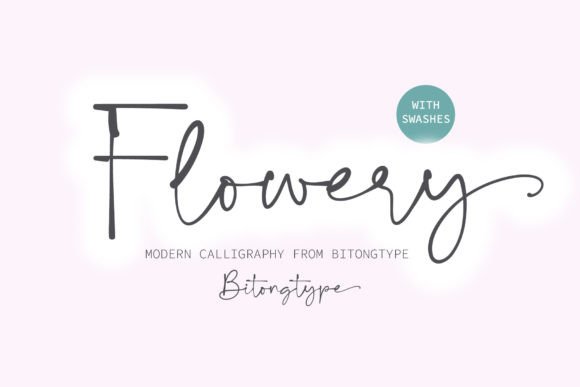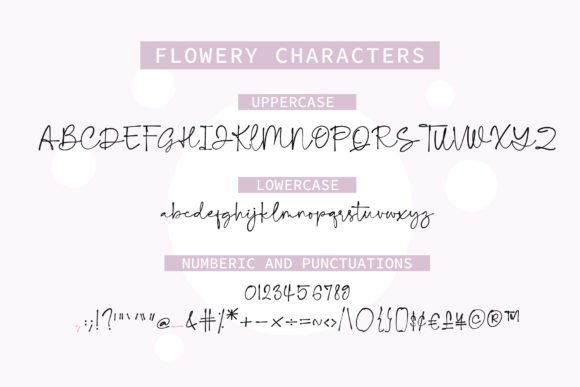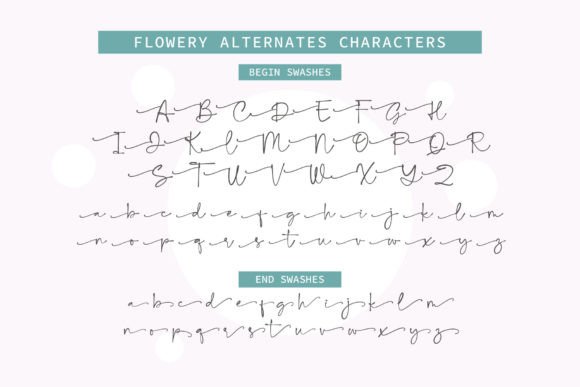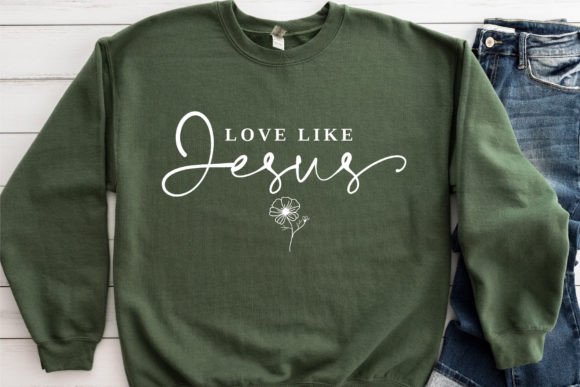
Flowery Font
About the Flowery Font
Welcome to the world of Flowery Font, a typeface that will inspire your next great project. Flowery is a sweet and cute handwritten font. Fall in love with its incredibly versatile style and use it to create gorgeous wedding invitations, beautiful stationary art, eye-catching social media posts, and much more!
Flowery excels in applications requiring a touch of delicate charm. It’s ideal for short headlines, branding elements for feminine products, wedding stationery, and social media graphics where its handwritten quality adds personality. However, its low x-height and decorative elements make it unsuitable for body text or UI elements where readability is paramount. Avoid using it for large blocks of text or applications needing high legibility.
Pairing Flowery with a clean sans-serif like Montserrat or a classic serif like Garamond will create a balanced aesthetic. For a more playful feel, consider pairing it with a geometric sans-serif such as Futura. The contrast will enhance Flowery’s whimsical nature without overwhelming the design.
Its overall personality is undeniably friendly and romantic, lending itself well to brands focused on beauty, fashion, or events with a similar aesthetic. The font’s delicate swashes and organic forms communicate warmth and approachability.
Flowery Font Usage Examples
Flowery Font Example